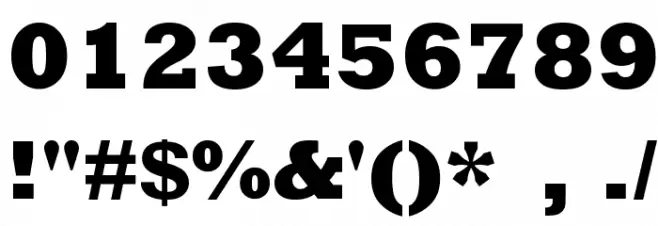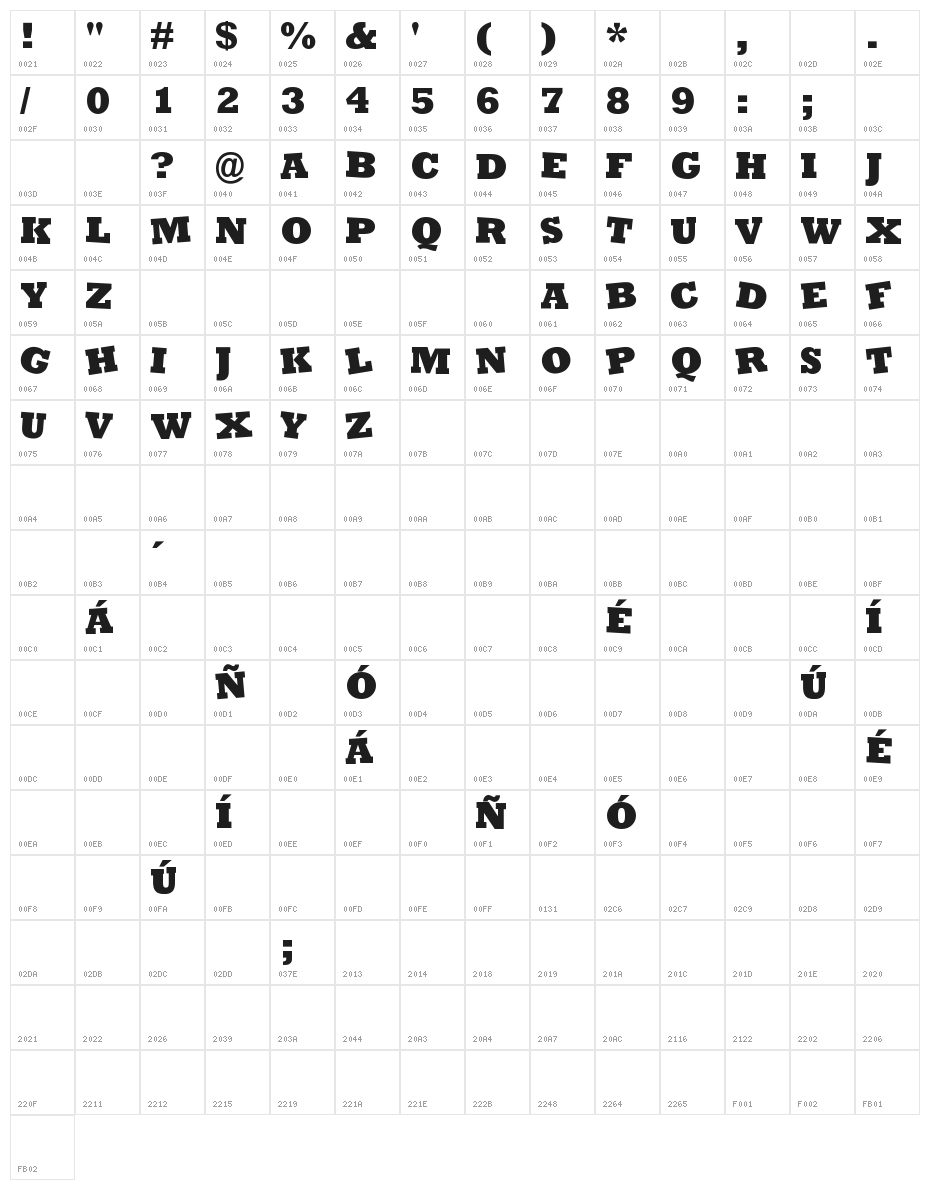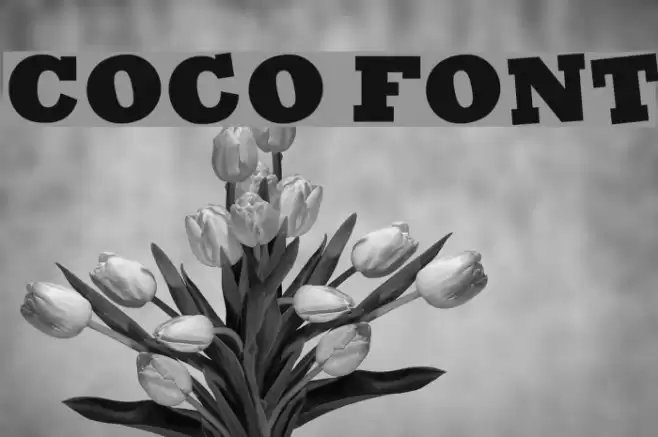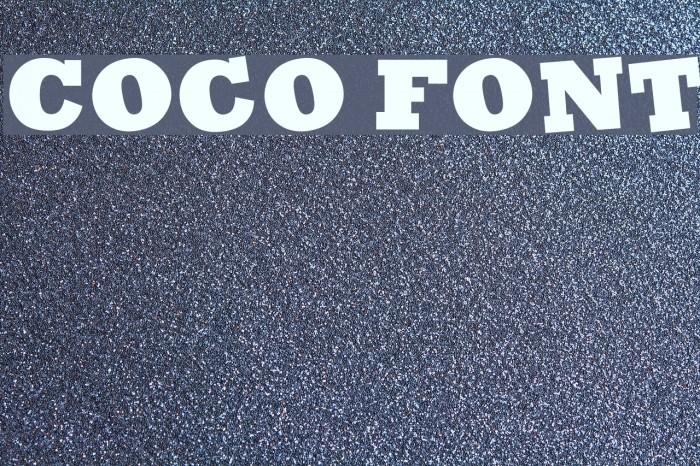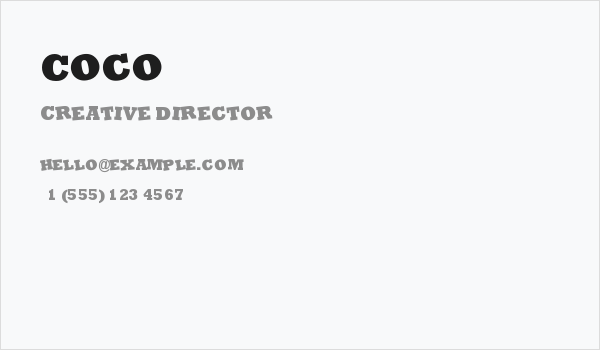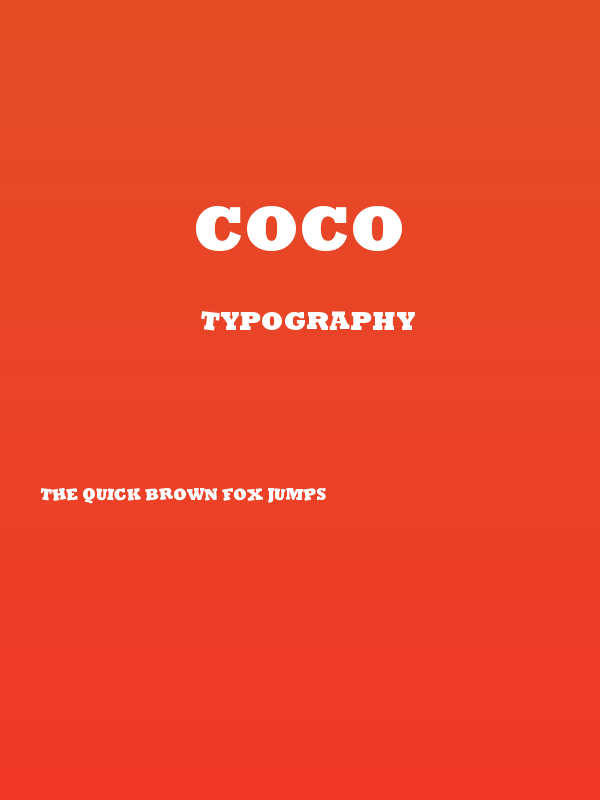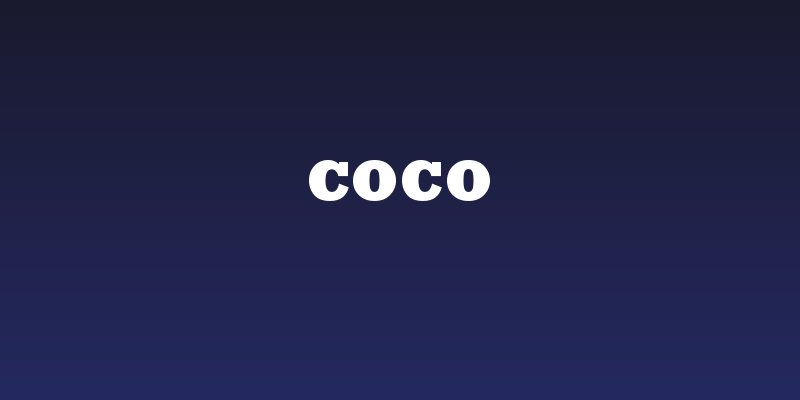
Coco Font
Coco Description
This font features bold, thick strokes with a playful and slightly whimsical style. The characters are heavily weighted, giving them a strong presence, while the slight curvature and varying angles add a dynamic and lively feel. The uppercase letters are particularly robust, with a consistent thickness throughout, making them stand out prominently. The lowercase letters maintain the same boldness, ensuring uniformity across the typeface. The numbers and special characters follow the same design principles, ensuring they integrate seamlessly with the alphabet. This font's boldness and unique style make it ideal for attention-grabbing designs.
Overall StylePlayful, Bold, Dynamic
Use CaseHeadlines, Posters, Branding
Proposed ProjectsIdeal for posters, headlines, branding, and any design needing a strong, playful impact.